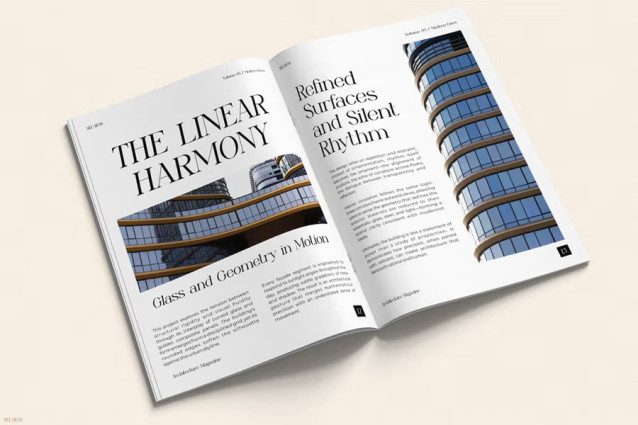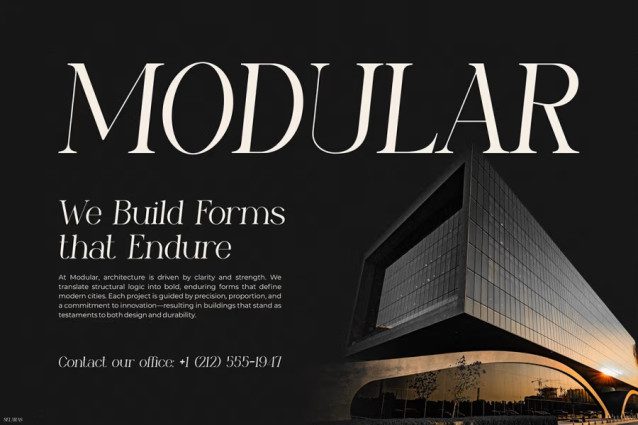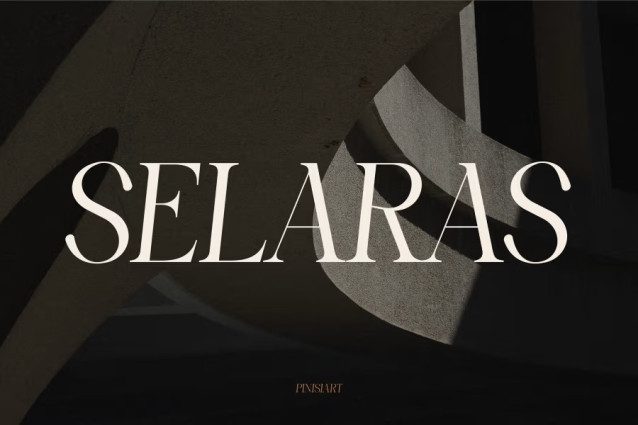
Selaras Serif Font
Selaras Serif Font is a captivating blend of modern geometry and classic sophistication. Its refined letterforms flow seamlessly between bold confidence and subtle grace, making it stand out on any visual platform. Inspired by architectural harmony, Selaras expresses balance in every stroke—each curve and line designed to radiate timeless beauty. Whether showcased in dark, moody layouts or bright minimalist designs, this typeface adapts effortlessly, exuding class and refinement.
The high contrast between thin and thick strokes creates a visual rhythm that feels both editorial and luxurious. With its stylish serif detailing and elegant proportions, Selaras is more than a font—it’s an aesthetic statement that transforms words into works of art.
Selaras is perfect for designers, content creators, branding experts, and modern entrepreneurs who seek sophistication in every detail. It’s especially ideal for architectural studios, lifestyle magazines, interior design brands, and high-end fashion houses. Its versatile nature makes it a go-to choice for Instagram posts, brand logos, editorial layouts, and website headlines that demand a sense of refinement and authority.
If your brand is about balance, precision, and harmony, Selaras helps you express that identity with stunning visual coherence. It brings an elevated aesthetic to minimalist compositions and turns simple phrases into elegant focal points. Perfectly legible in both print and digital formats, it elevates brand storytelling while maintaining visual serenity.
Discover a font that embodies form, harmony, and modern luxury. Instagram Font Selaras invites you to communicate not just with words but with beauty and structure that reflects intentional design. Make every post, headline, and logo memorable—because when your typography speaks with integrity, your message resonates deeper.